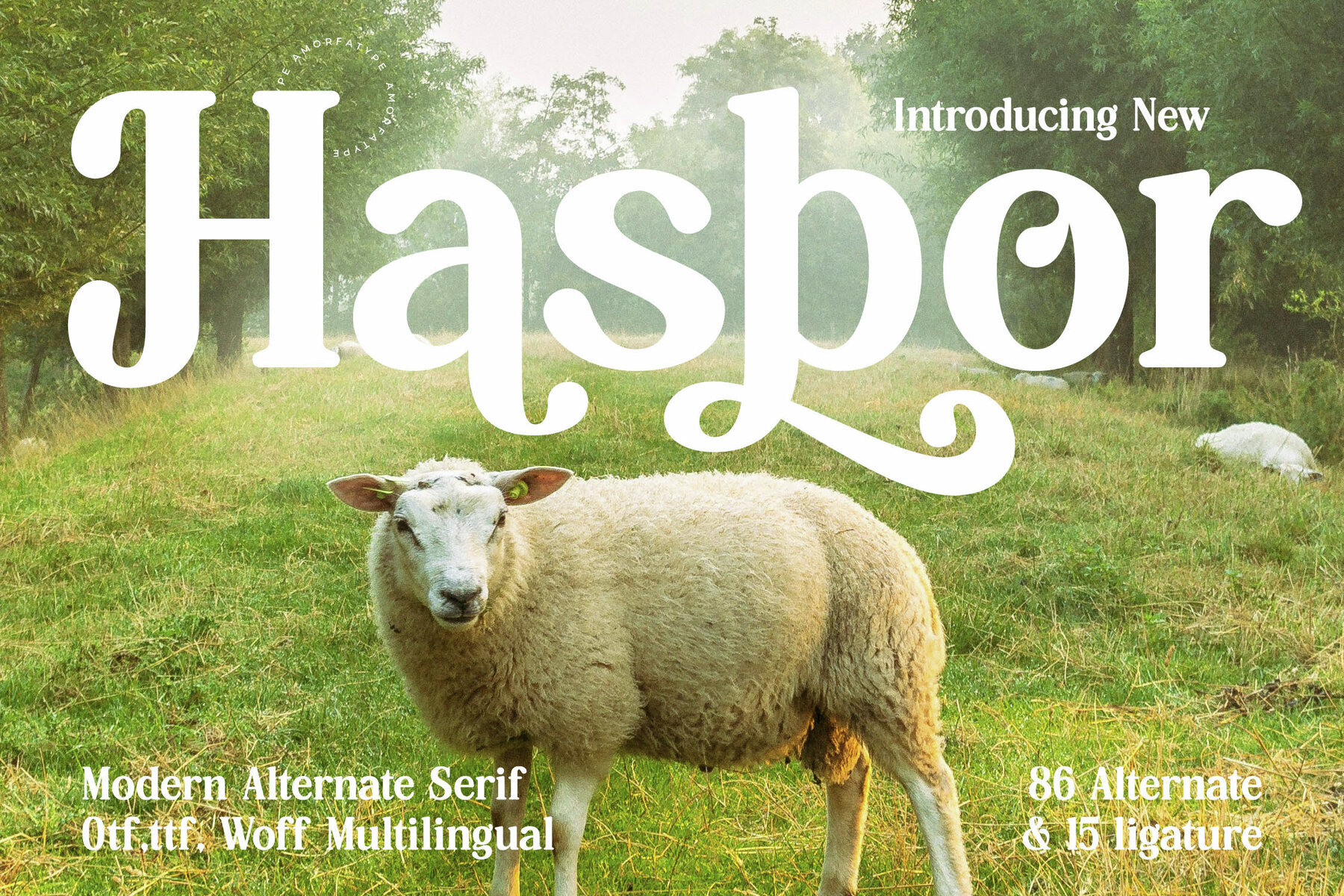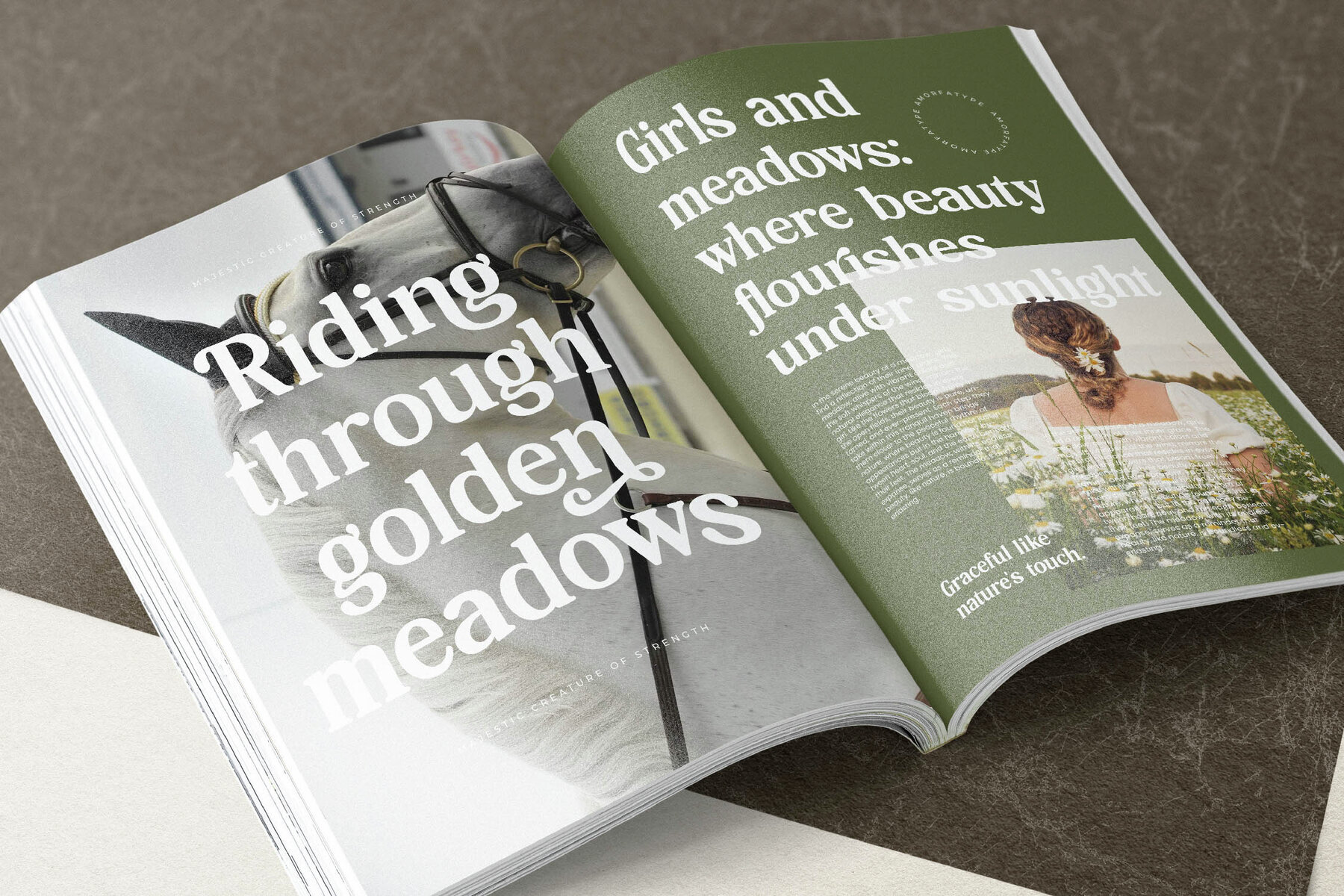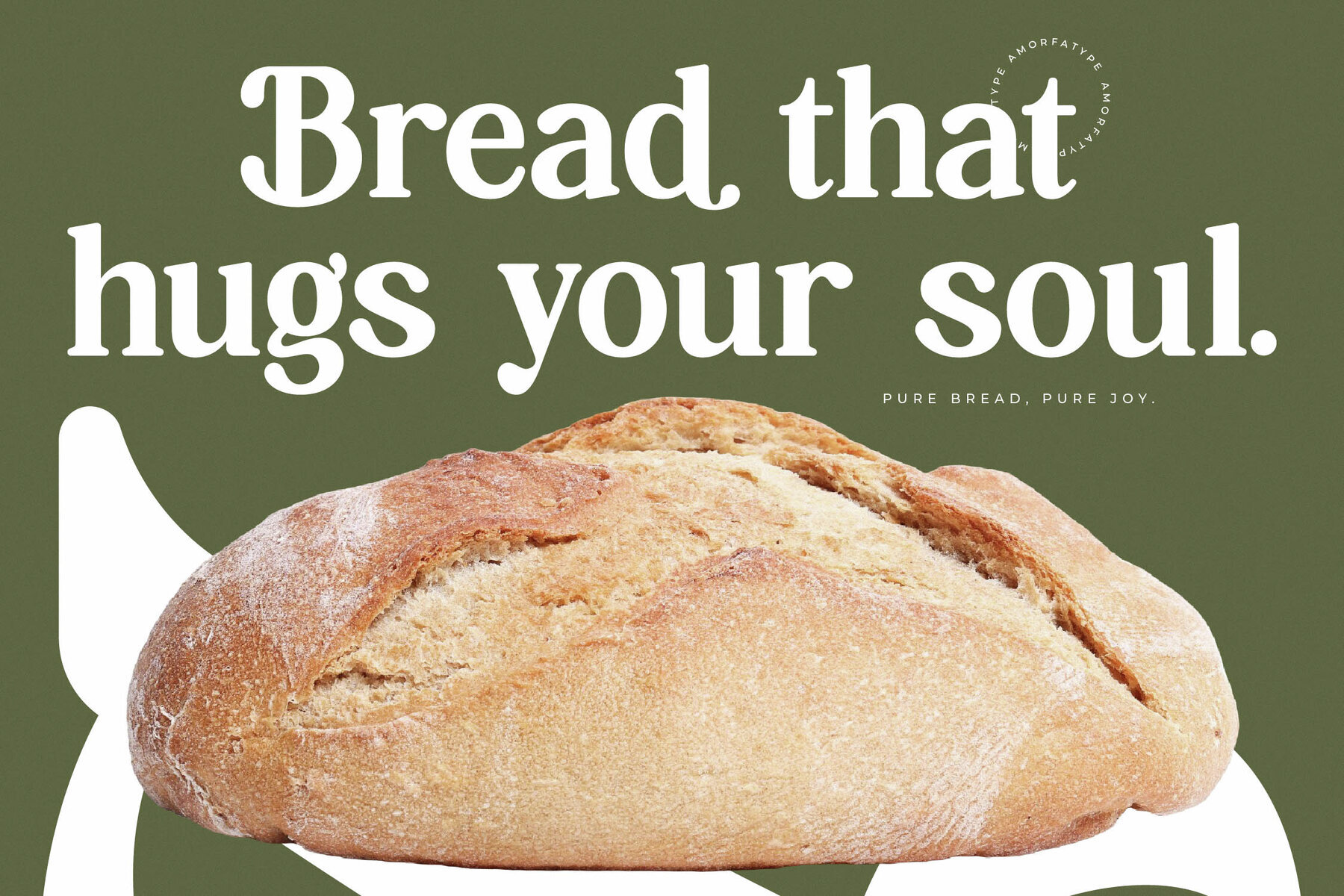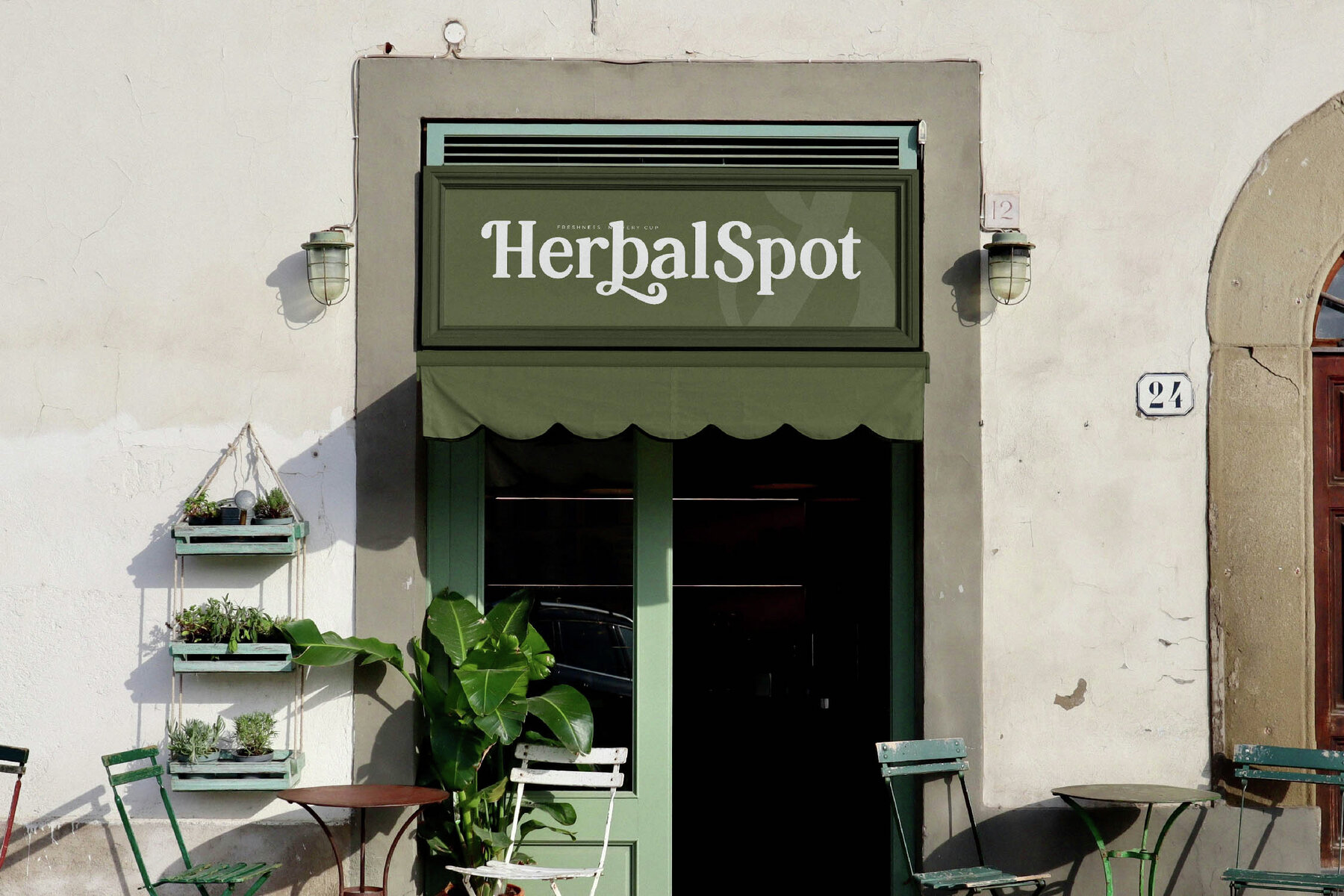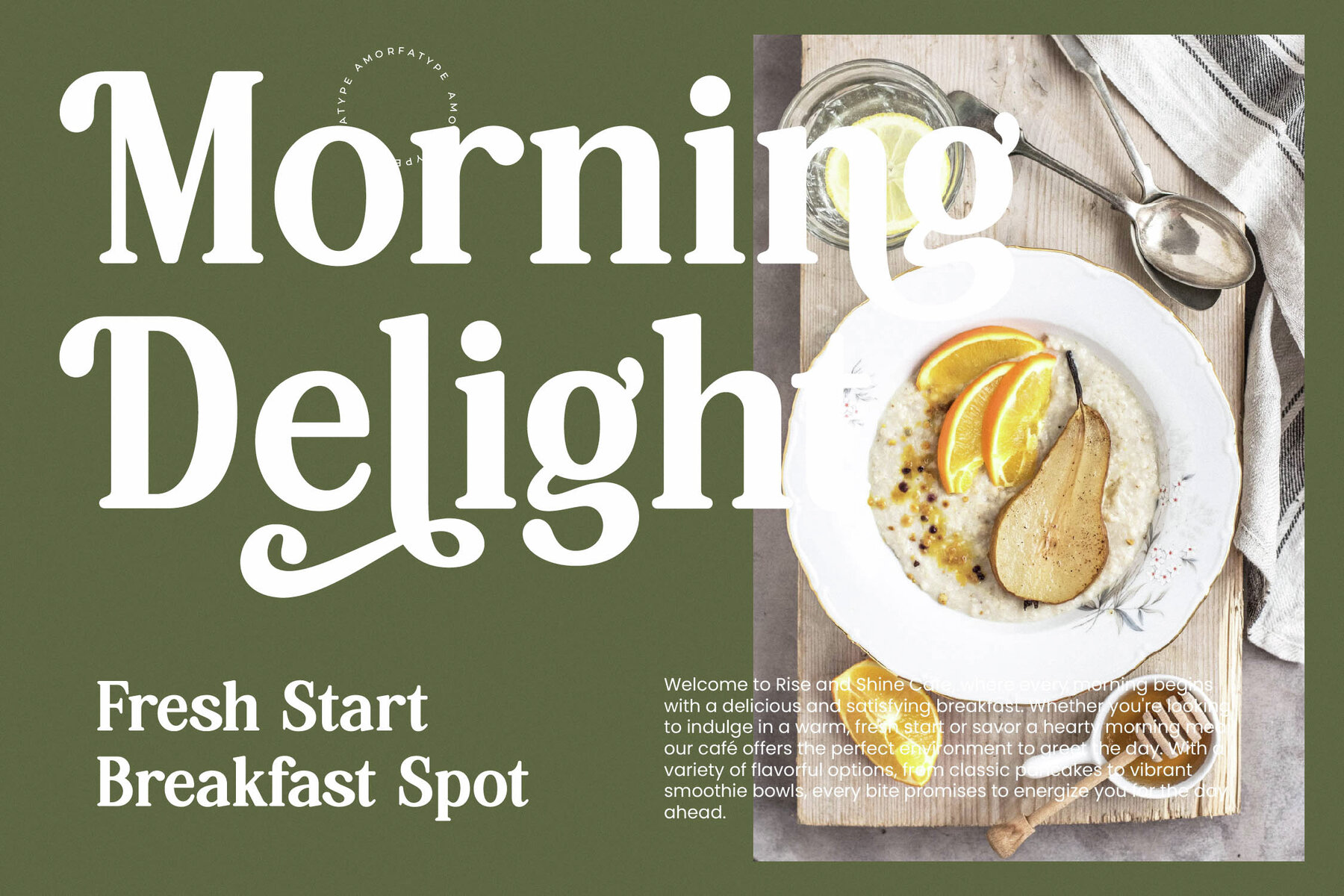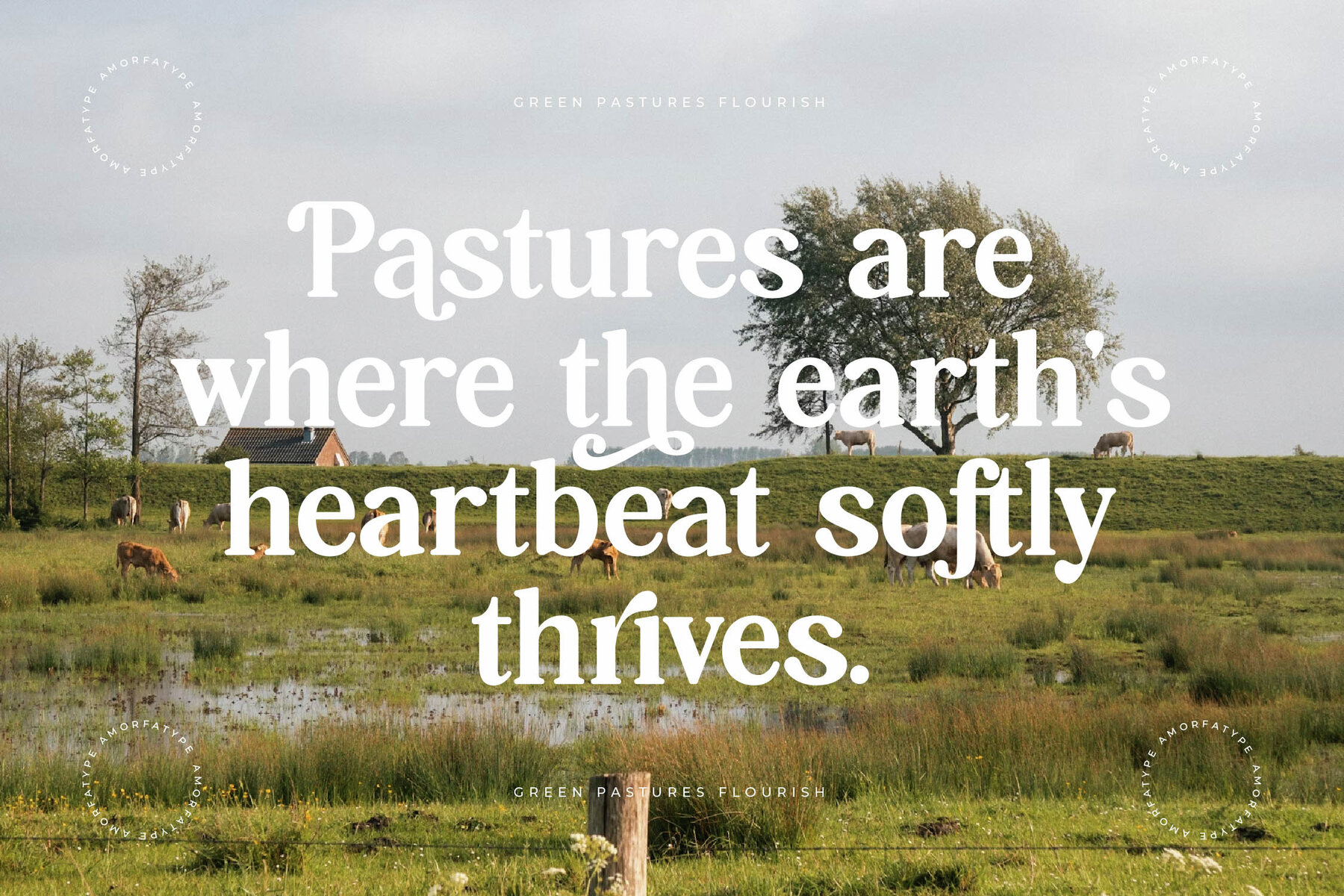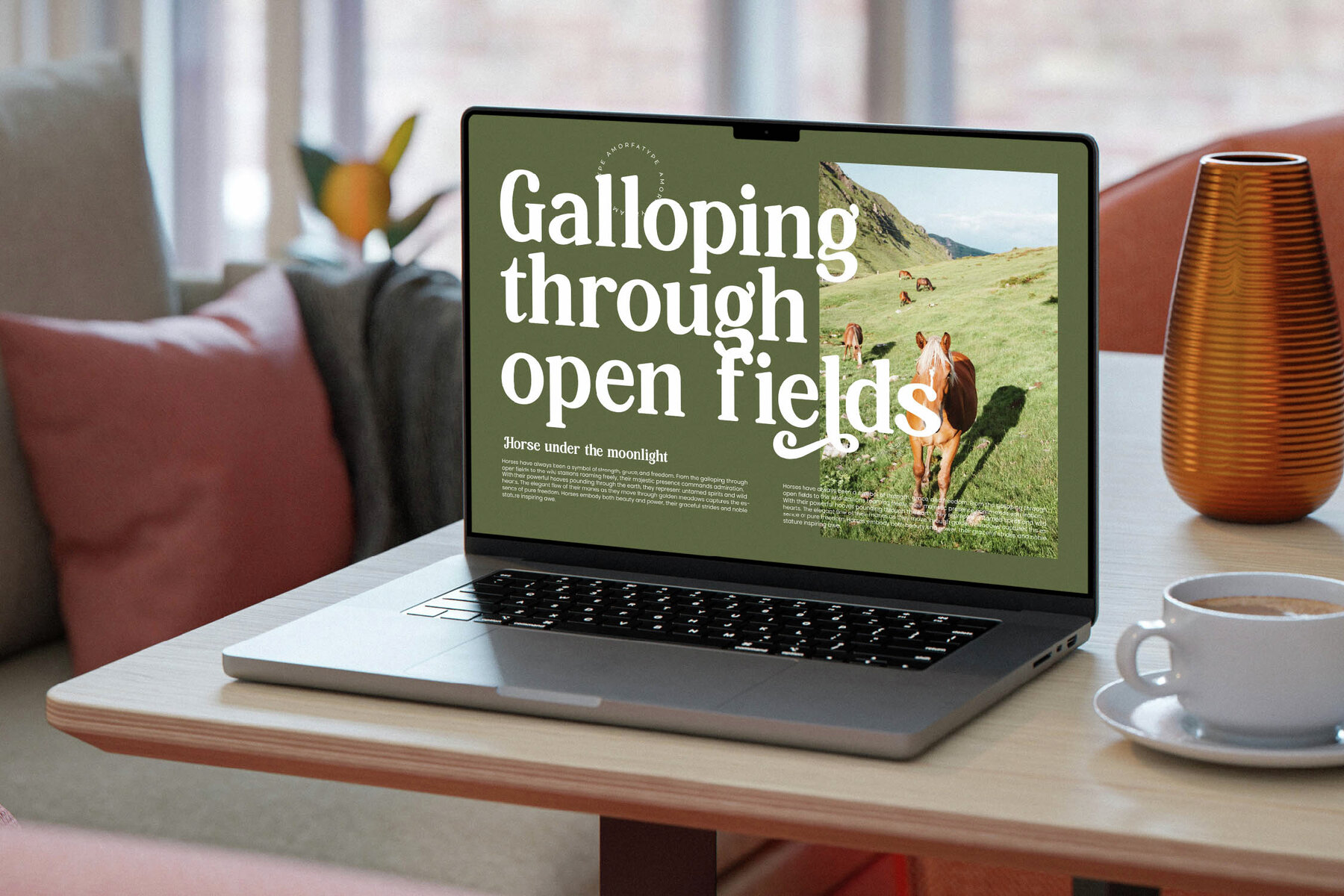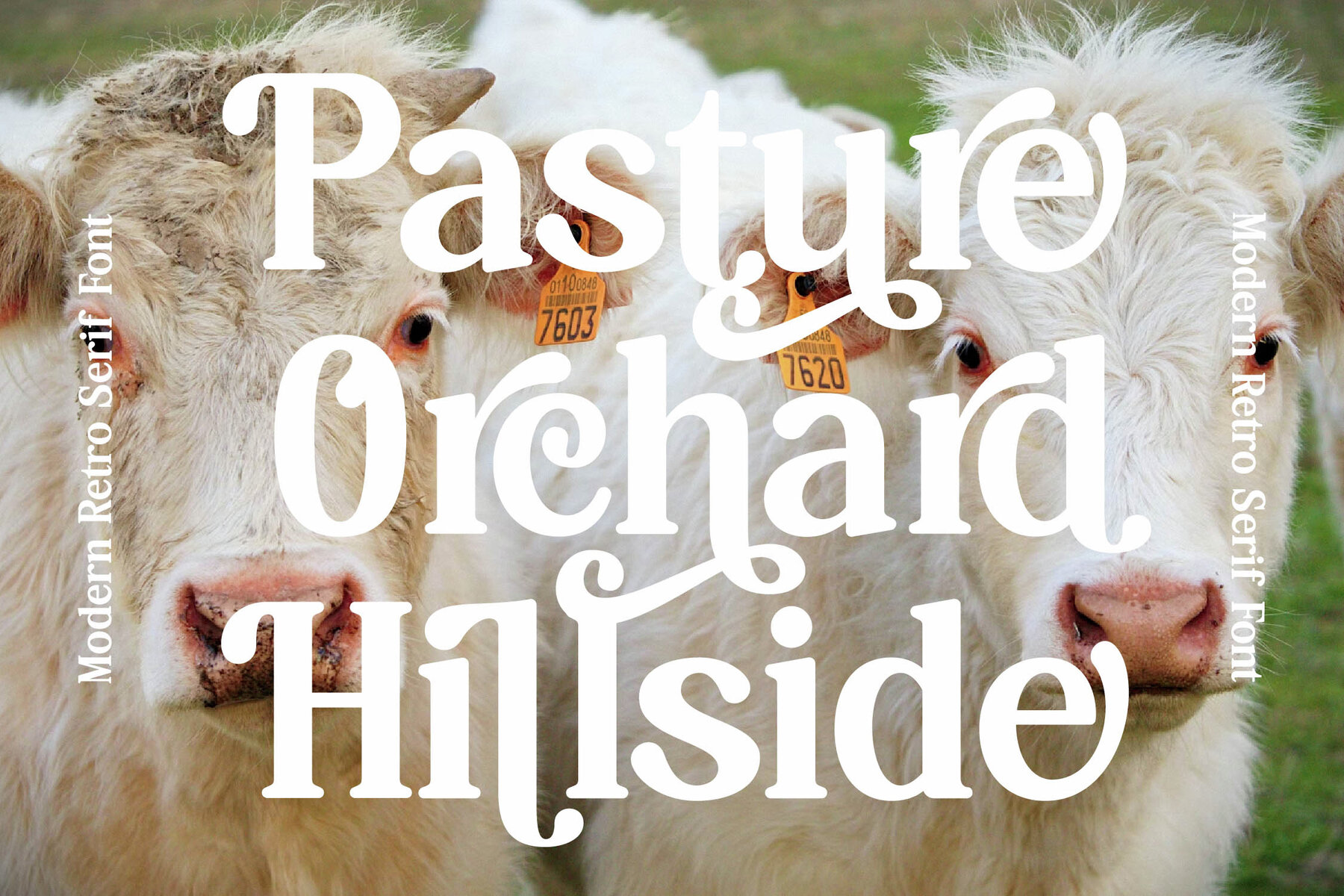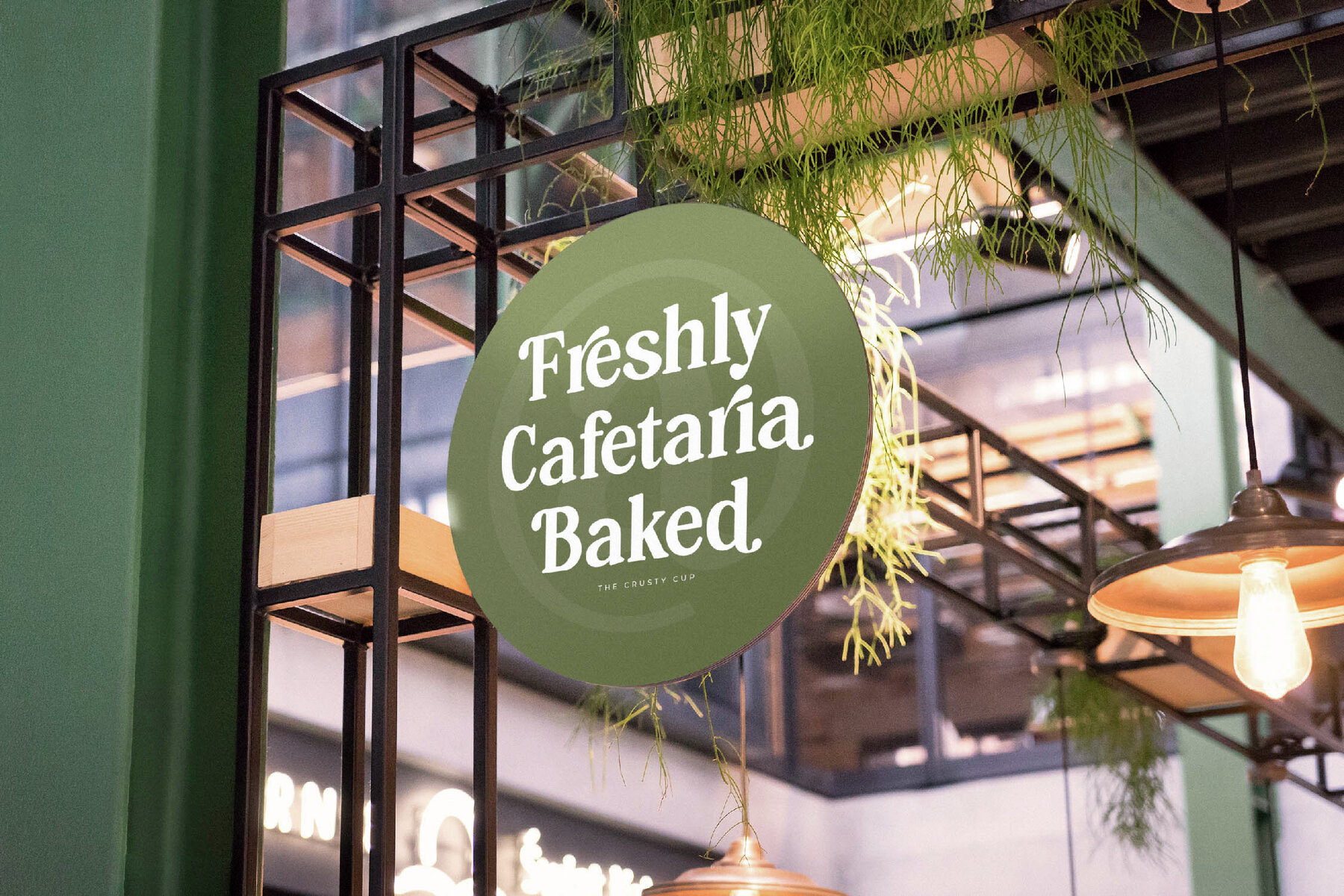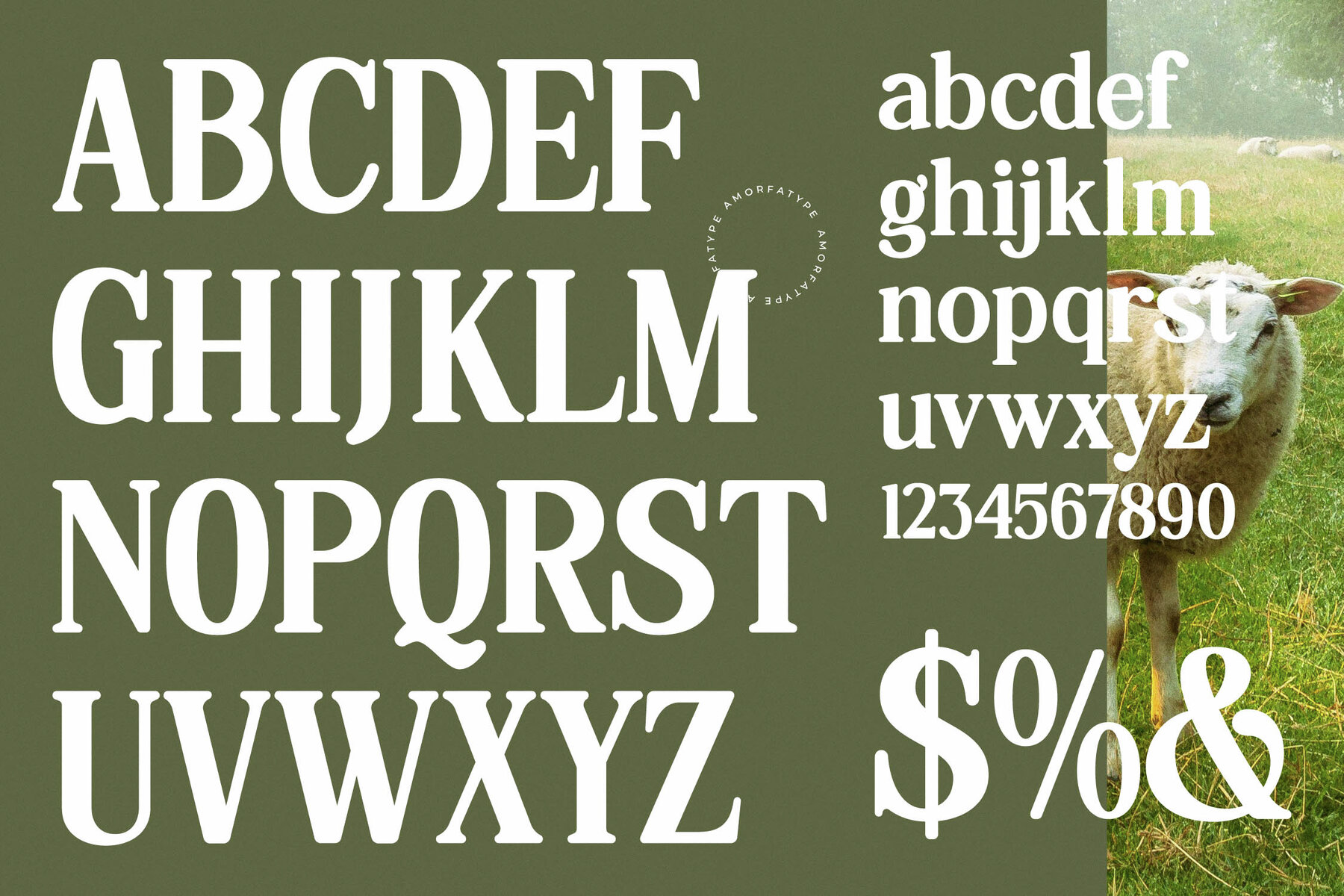
Hasbor Font
Hasbor is a modern alternate serif font that brings a touch of contemporary elegance to any design project. With its bold, geometric serifs and sophisticated alternate letterforms, Hasbor delivers a blend of sophistication and creativity. The font's harmonious stroke contrasts and distinctive design make it stand out while maintaining a balanced mix of classic and modern elements.
Perfect for a range of applications, Hasbor excels in high-end branding, editorial layouts, and digital design interfaces. Its bold character enhances impactful headlines while ensuring excellent readability in smaller text sizes. Each glyph is precisely crafted for optimal functionality and aesthetics, providing a seamless experience for both designers and audiences.
- Ligatures, Alternates & Swashes